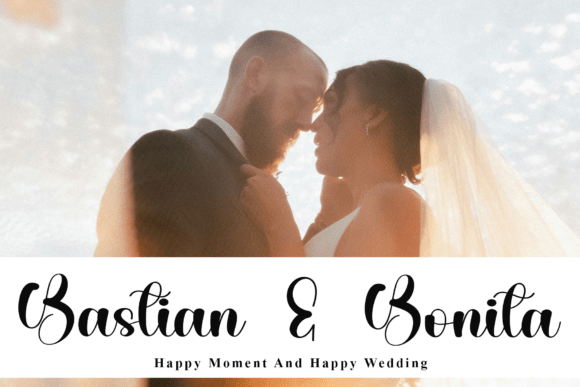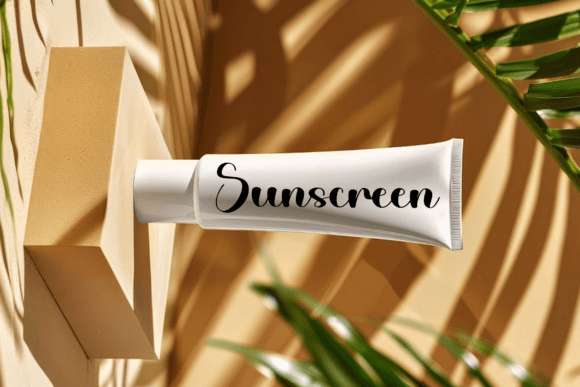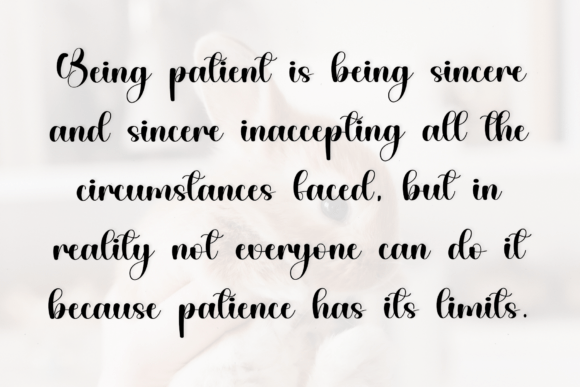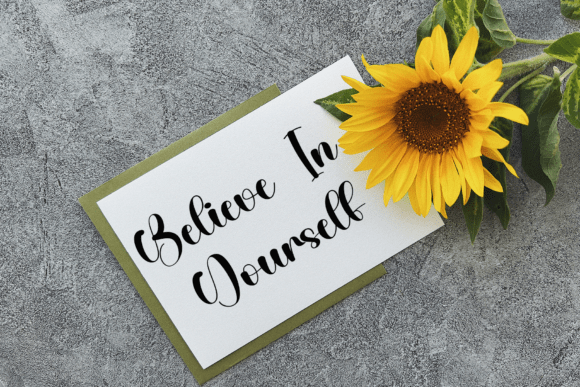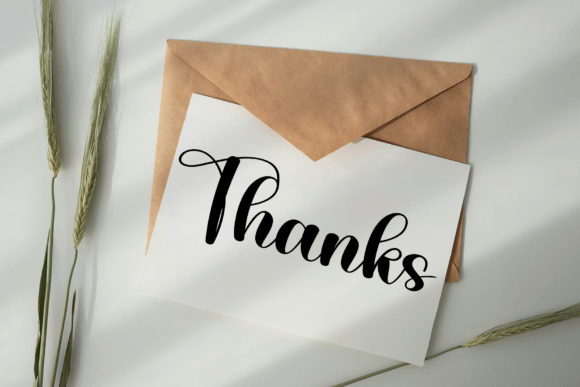
The Bunny Font: A Charming Handwritten Delight for Designers
I still remember the design project that led me to discover the Bunny font. I was working on a branding project for a new eco-friendly skincare line, and I needed a font that would convey a sense of freshness and approachability. After hours of scrolling through font libraries, I stumbled upon Bunny, and it was love at first sight! ✨ The fluid strokes and organic lines of this charming handwritten font immediately caught my attention, and I knew I had found the perfect fit.
An Honest Review of Bunny Font
What I Love About Bunny Font
- ✨ Fresh and Casual Elegance: Bunny’s fluid strokes and organic lines evoke a laid-back vibe, making it perfect for various design projects.
- ✅ Versatility: Whether used for branding, invitations, or social media graphics, Bunny adds a touch of warmth and personality to any design.
- 💕 Emotional Connection: The font’s charming and whimsical feel helps create an emotional connection with your audience, making your designs more relatable and engaging.
While Bunny font is an excellent choice for many design projects, there are a few things to keep in mind: 🤔
- ⚠️ Limited Formality: Bunny’s casual and handwritten nature makes it less suitable for formal or corporate designs.
- ⚠️ Glyph Limitations: While Bunny has a range of glyphs and stylistic alternates, it may not have the same level of customization as some other fonts.
- Experiment with OpenType features, such as stylistic alternates and glyphs, to add more personality to your design.
The Backstory of Bunny Font
The Bunny font was designed by a talented type designer who wanted to create a font that would evoke a sense of freshness and casual elegance. Inspired by the natural world and the beauty of handwritten lettering, the designer crafted a font that would be perfect for a wide range of design projects. From branding and invitations to social media graphics and more, Bunny font is a versatile and charming choice.
| Font Name | Bunny Font |
| Author | Black line |
Q: What is the Bunny font best suited for?
A: The Bunny font is best suited for designs that require a fresh and casual elegance, such as branding, invitations, and social media graphics.
Q: Is Bunny font available in different weights or styles?
A: Currently, Bunny font is available in a single weight, but it has a range of glyphs and stylistic alternates that can add variety to your designs.